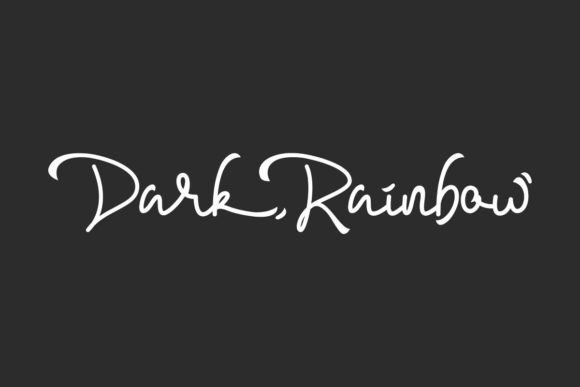
Introducing Dark Rainbow Font: A Playful and Colorful Handwriting Script Font
In the world of typography, fonts play a crucial role in conveying messages, expressing emotions, and creating visual identities. Among the numerous fonts available, Dark Rainbow Font stands out as a unique and captivating handwriting script font that is sure to grab attention. Inspired by children’s first handwriting, this font boasts a special style that is both playful and colorful, making it an excellent choice for various industries.
What Makes Dark Rainbow Font Special?
Dark Rainbow Font is a one-of-a-kind font that showcases a distinct style, characterized by its playful and colorful characters. The font’s design is inspired by the first handwriting of children, which gives it a charming and innocent appeal. The characters in this font are carefully crafted to be highly legible and visually appealing, making it perfect for use in a wide range of applications.
Key Features of Dark Rainbow Font
- Playful Characters: The font features playful characters with a unique and childlike appeal.
- Multicolor Support: Dark Rainbow Font allows you to add lots of colors to your text, making it perfect for designs that require a pop of color.
- Handwriting Script Style: The font is designed in a handwriting script style, giving it a personal and artistic touch.
Industries That Can Benefit from Dark Rainbow Font
Dark Rainbow Font is a versatile font that can be used in various industries, including:
- Advertisement: The font’s playful and colorful nature makes it perfect for creating eye-catching advertisements.
- Art: The font’s artistic and creative vibe makes it suitable for use in art-related projects.
- Café and Restaurant: The font’s playful and childlike appeal makes it perfect for use in café and restaurant branding.
- Fashion: The font’s stylish and trendy vibe makes it suitable for use in fashion-related projects.
- Handicrafts: The font’s artistic and creative nature makes it perfect for use in handicraft-related projects.
- Kid’s Stuff: The font’s playful and childlike appeal makes it perfect for use in kid-related products and services.
- Perfume and Skincare: The font’s elegant and sophisticated vibe makes it suitable for use in perfume and skincare branding.
- Printing and Publishing: The font’s clear and legible nature makes it perfect for use in printing and publishing.
Why Choose Dark Rainbow Font?
Dark Rainbow Font is an excellent choice for designers and businesses looking for a unique and playful font that can add a touch of personality to their designs. Here are some reasons why you should choose Dark Rainbow Font:
- Unique and Playful Design: The font’s unique and playful design makes it stand out from other fonts.
- Highly Legible: The font is highly legible, making it perfect for use in body text and headings.
- Multicolor Support: The font’s multicolor support makes it perfect for designs that require a pop of color.
Tips for Using Dark Rainbow Font
Here are some tips for using Dark Rainbow Font:
- Use it for Headings and Titles: The font’s playful and colorful nature makes it perfect for use in headings and titles.
- Pair it with Other Fonts: The font can be paired with other fonts to create a unique and visually appealing design.
- Experiment with Colors: The font’s multicolor support makes it perfect for experimenting with different colors and color combinations.
- Use it for Kid-Related Projects: The font’s playful and childlike appeal makes it perfect for use in kid-related projects.
Dark Rainbow Font is a unique and captivating handwriting script font that is sure to grab attention. Its playful and colorful nature makes it perfect for use in various industries, including advertisement, art, café, fashion, handicrafts, kid’s stuff, perfume, printing, publishing, skincare, and more. With its PUA encoding, multicolor support, and highly legible design, Dark Rainbow Font is an excellent choice for designers and businesses looking for a font that can add a touch of personality to their designs.